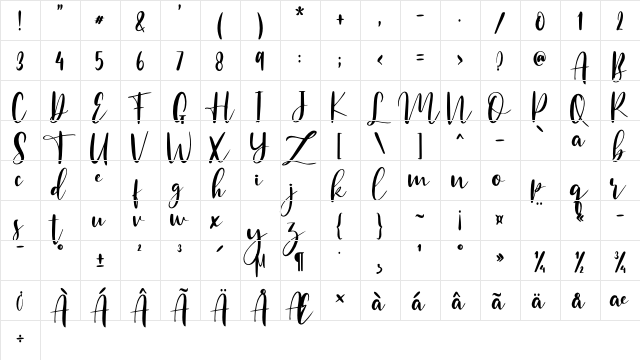
PianoTeacher Regular
| Designer | Sarwo Edhi Prayitno |
Design Context for PianoTeacher Typeface
PianoTeacher is a composed and adaptable typeface that performs quietly and consistently across a wide range of design contexts.